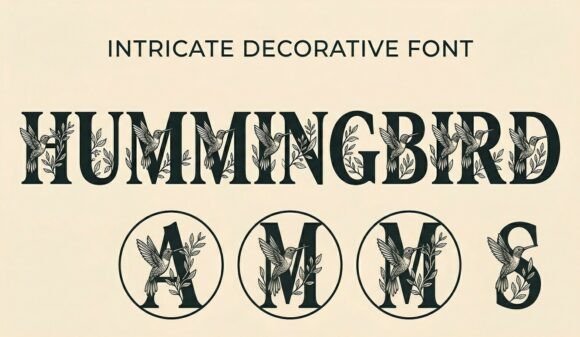
Introduction to Hummingbird Font
Have you ever been working on a creative project, pouring your heart and soul into it, only to be stuck on the perfect design element? That’s when I discovered the Hummingbird Font, a stunning and highly detailed decorative display font that instantly adds a touch of elegance and whimsy to any design. Every single letter features a beautifully illustrated, delicate hummingbird interacting with clean, bold outline typography, making it a game-changer for designers looking to add a unique touch to their work.
The Hummingbird Font is a valuable resource for designers, offering a high-quality, transparent background that can be easily edited and customized to fit any project. Whether you’re working on a free download or a paid design, this font is sure to shine and make your project stand out from the crowd.
With its intricate details and delicate design, the Hummingbird Font is perfect for creating personalized monograms, large initials, or striking single-word titles. Its versatility makes it a must-have for any designer’s digital crafting library, and its beauty is sure to inspire your next creative project.
Key Features of Hummingbird Font
- High-quality design resource for creative projects, offering a unique and elegant aesthetic.
- Transparent background, allowing for easy customization and versatility in design applications.
- Perfect for use in logos, branding, and other visual identity projects due to its sophisticated and modern design.
- Features a high-resolution design, ensuring crisp and clear display in print and digital formats.
Honest Review: Hummingbird Font
I recently had the chance to work with the Hummingbird Font, and I must say, it’s a great addition to any designer’s toolkit. This free download is perfect for designers looking for a high-quality font to elevate their creative project.
- The Hummingbird Font offers a unique and playful aesthetic that’s sure to catch the eye.
- The transparent background option allows for seamless integration with any design element.
- The Hummingbird Font may not be suitable for formal or professional designs, as its playful nature may not be taken seriously.
- The font may require some customization to achieve the desired look.
Overall, I’m impressed with the Hummingbird Font’s high quality and versatility. While it may have some limitations, it’s a great resource for designers looking to add a touch of whimsy to their creative project.
How to Use Hummingbird Font
Tips for Getting the Most Out of Hummingbird Font
To get the most out of the Hummingbird Font, use it in conjunction with a high-quality image or background. This will create a visually appealing and creative project. Additionally, experiment with different font sizes, colors, and styles to add depth and interest to your design.
The Hummingbird Font is commonly used in logo design, branding, and marketing materials. Its high-quality typography and transparent background make it an ideal choice for creative projects. It’s also a great option for designers who need a free download font that can be used in a variety of design software.